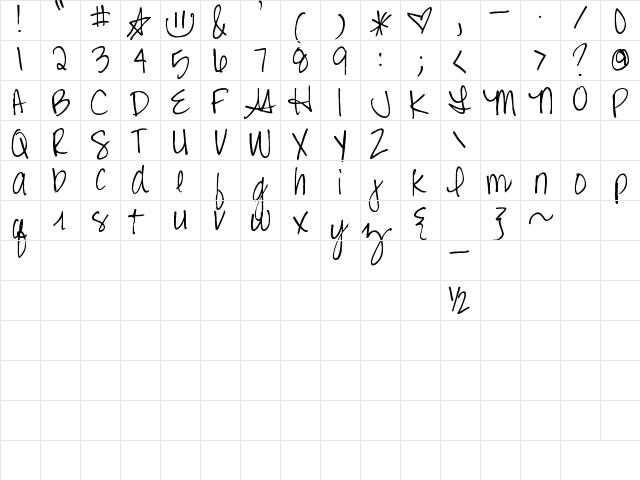
Pea Carrie Script Regular
Design Context for Pea Carrie Script Typeface
Pea Carrie Script brings a calligraphic fluidity to the page — its connecting strokes and expressive curves give it an unmistakably human quality.
Font Pairing: Combine Pea Carrie Script with a simple geometric sans for maximum contrast — the tension between flowing curves and clean structure is a classic typographic pairing.
Pro Tip: Pair Pea Carrie Script with a clean sans-serif for supporting text. The contrast between fluid script and geometric structure creates an elegant typographic hierarchy.